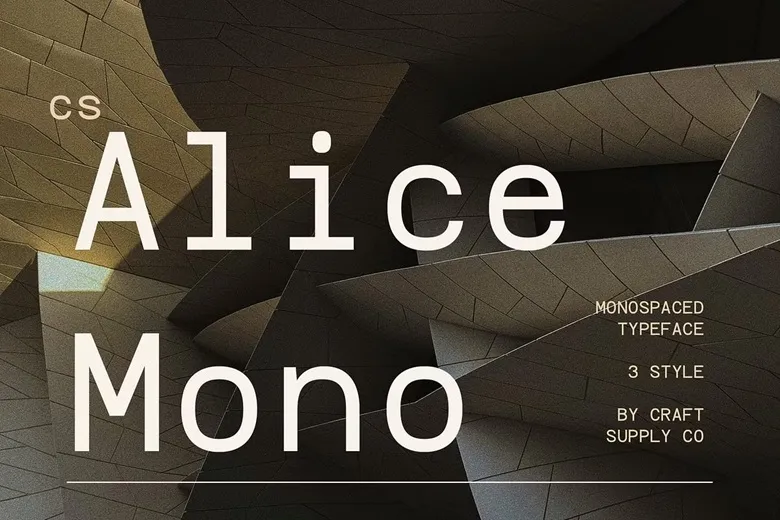
CS Alice Mono Font
CS Alice Mono is a contemporary monospace sans serif font with consistent letter gap for proper readability and accuracy in every project. That is why it has a minimalist and clear design that can be quite useful for business purposes.